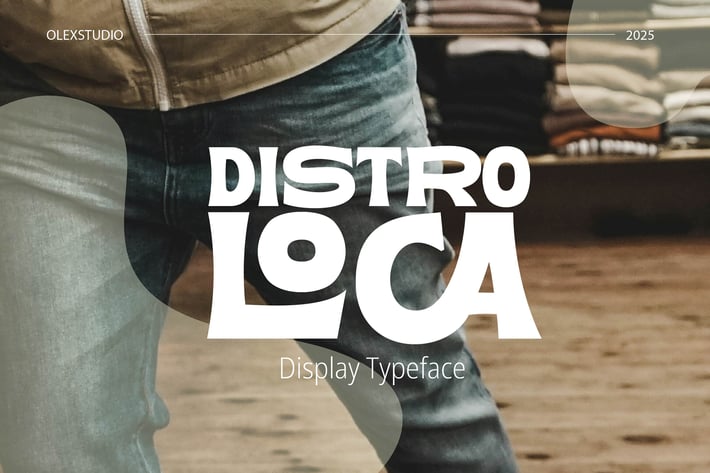
DISTROLOCA - Display Typeface
DISTROLOCA - Display Typeface This Font will look gorgeous on all your designs, invitation, book, branding materials, logo's, poster and all project design other.
DISTROLOCA - Display Typeface Font contains standard characters,Uppercase, Lowercase, Alternates, numbers, punctuation, ligatures and international glyphs. You will receive OTF, TTF files & WEBFONT